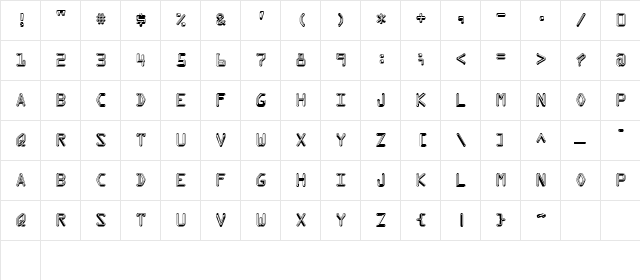
Complete Kredit Embossed glyph index. Displaying only characters natively supported by Kredit Embossed font.
Kredit is a composed and adaptable typeface that performs quietly and consistently across a wide range of design contexts.